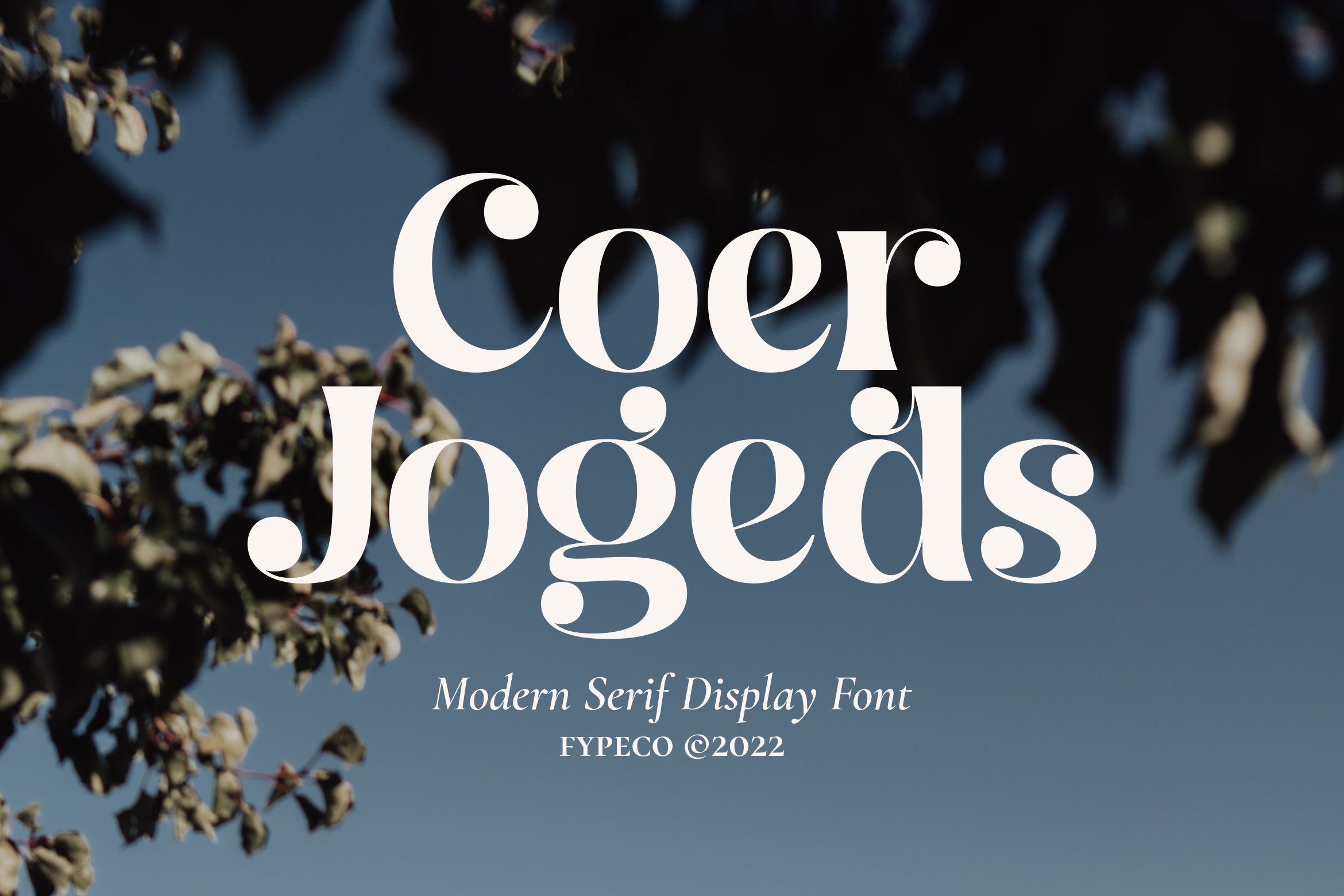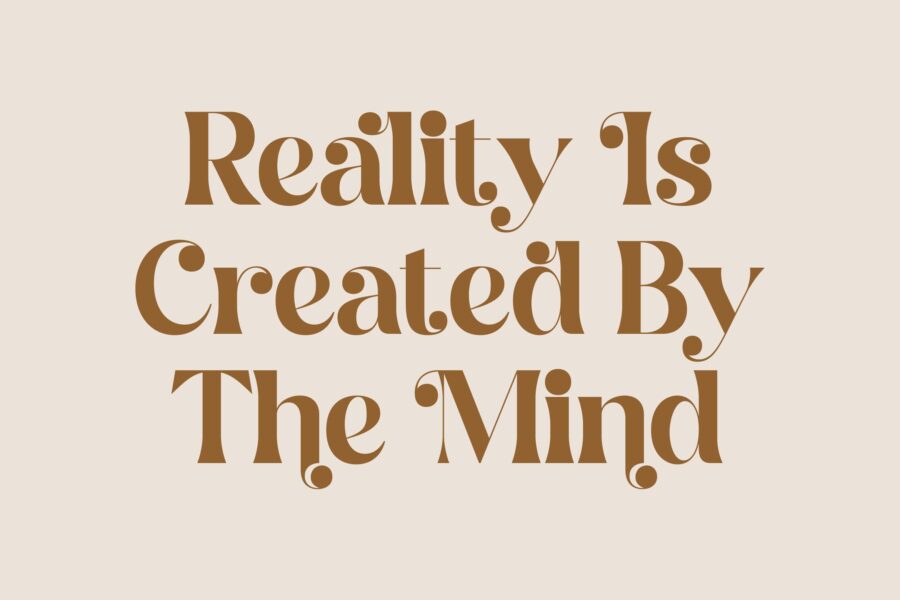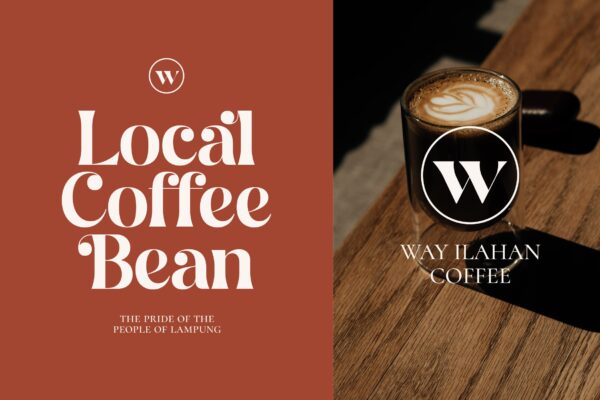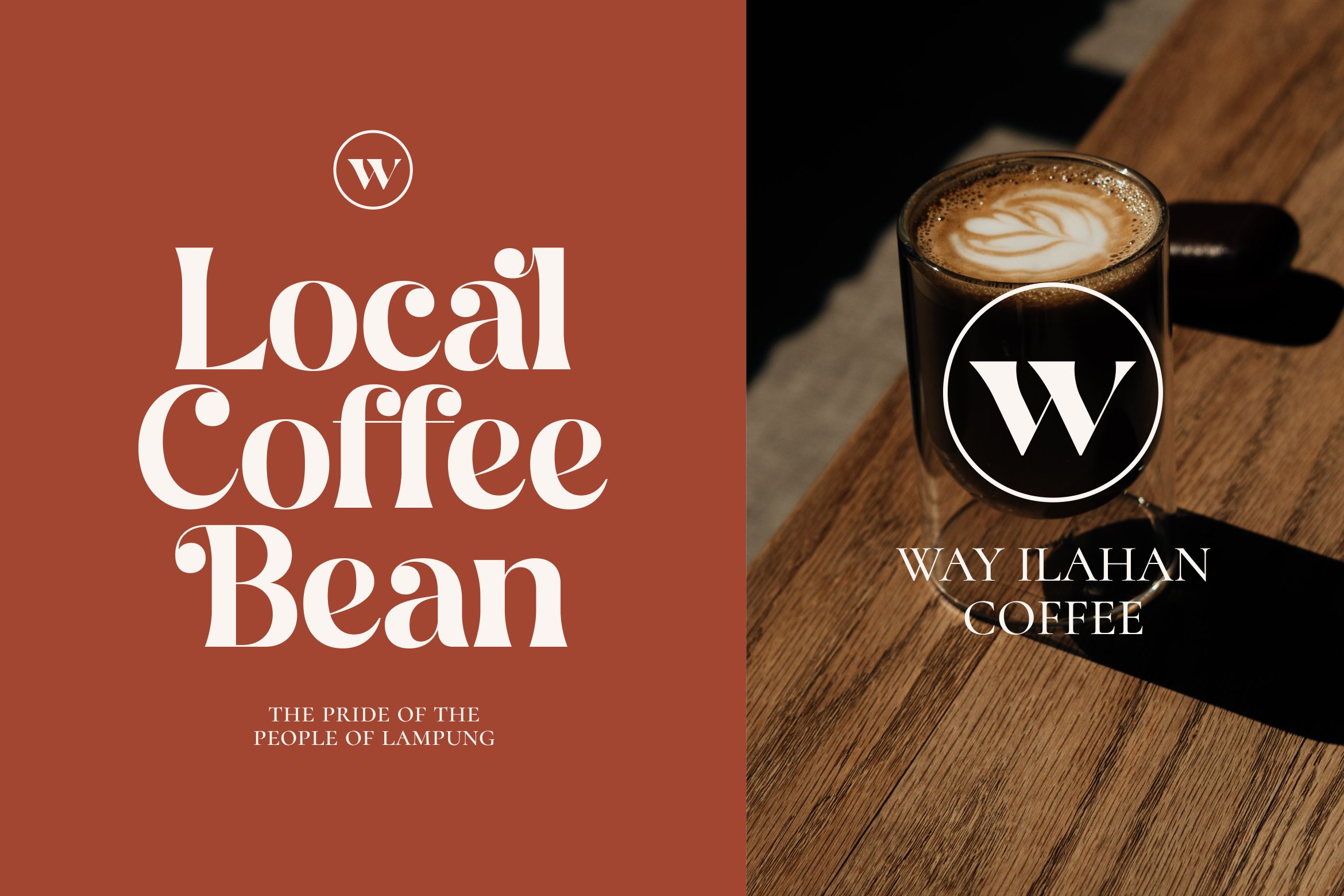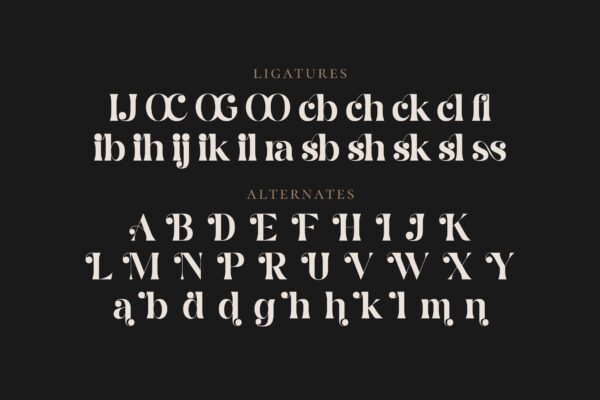
Coer Jogeds
Glyphs for Coer Jogeds
Coer Jogeds is a stylish serif display font that combines elegance with modern charm. Its refined letterforms are crafted to deliver a bold yet graceful impression, making it perfect for designs that demand both sophistication and creativity. The unique balance of sharp details and smooth curves brings a contemporary aesthetic that feels timeless and versatile.
From editorial headlines to fashion branding, Coer Jogeds adapts beautifully across various creative projects. Use it for packaging, logos, magazine layouts, or upscale boutique identities to elevate your designs with a luxurious touch. With its decorative elegance and professional appeal, this font ensures every word you create stands out with confidence and style.